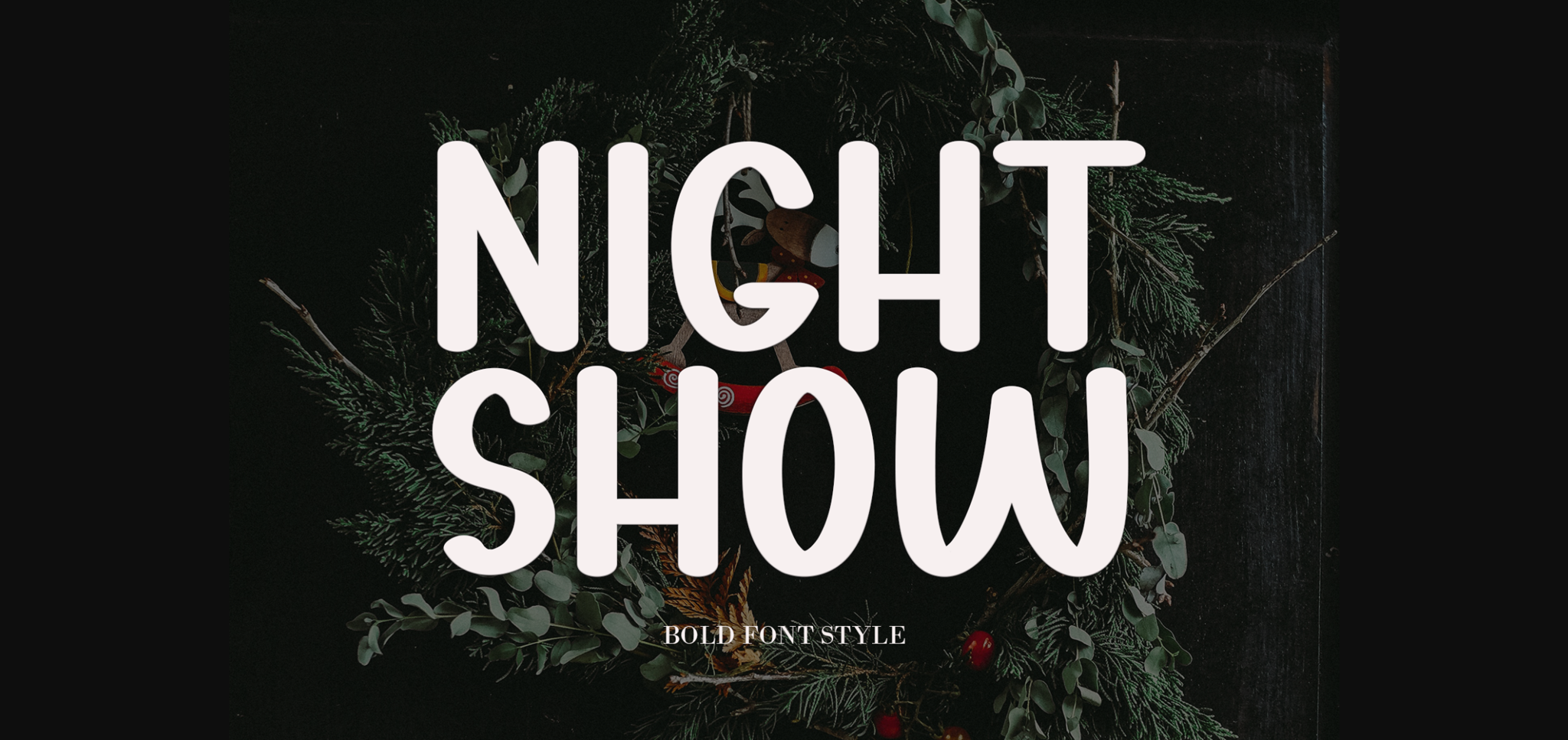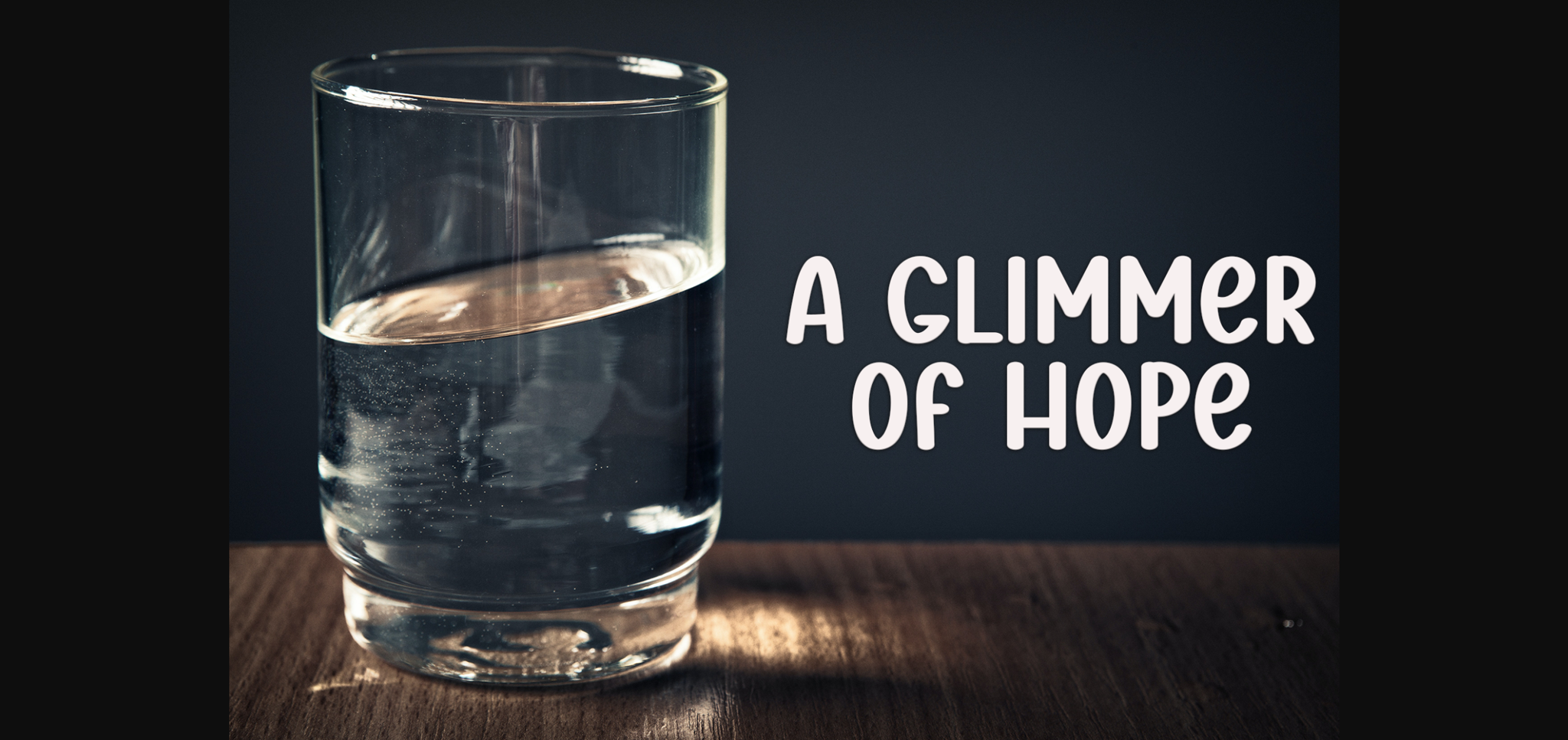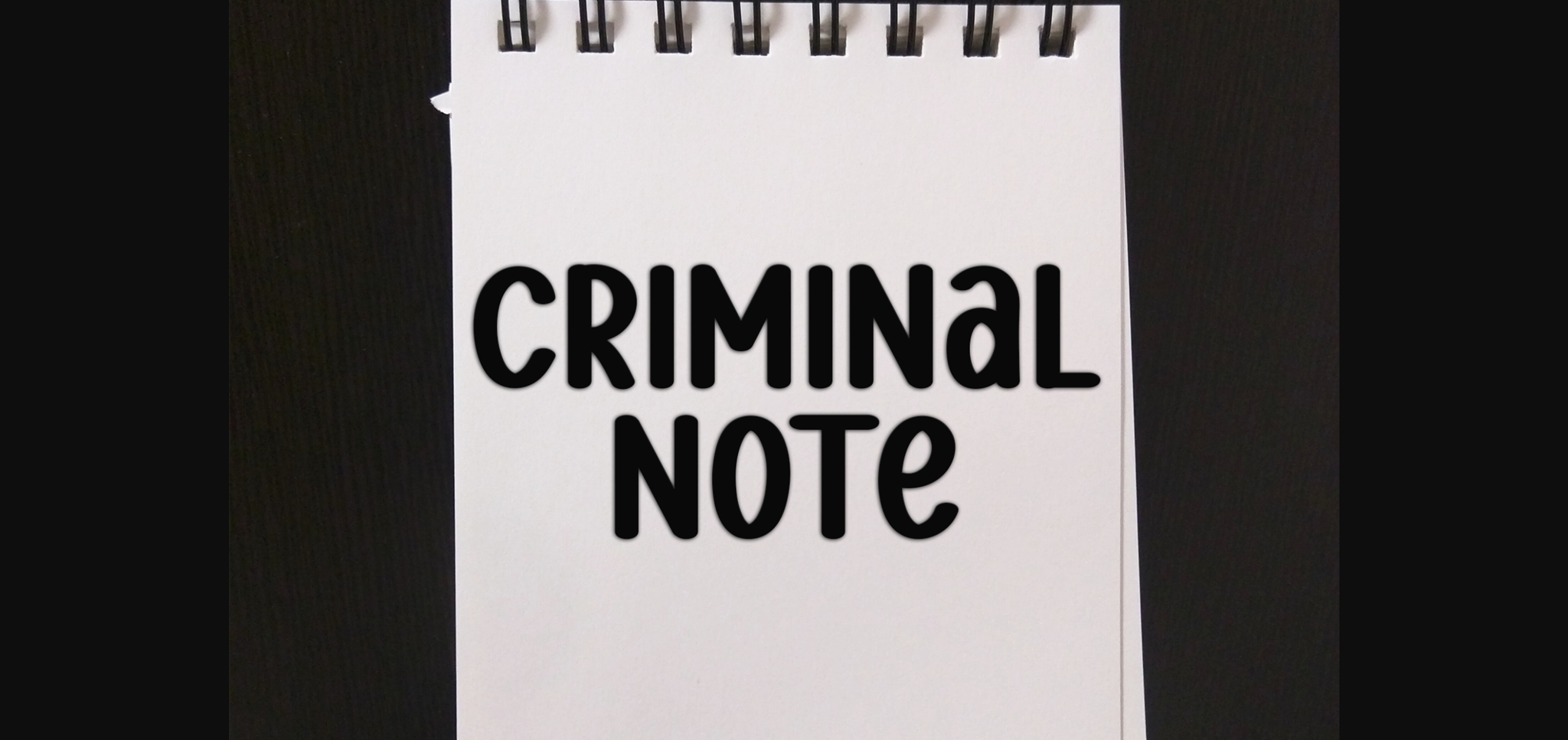
About Night Show Font
Night Show is a sweet and friendly sans-serif font. Fun and relaxed, this font is ideal for writing wedding invitations, cards, or any other design that might need a lovely touch!